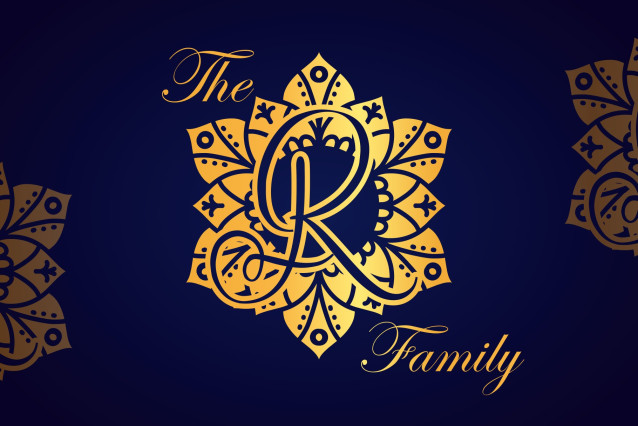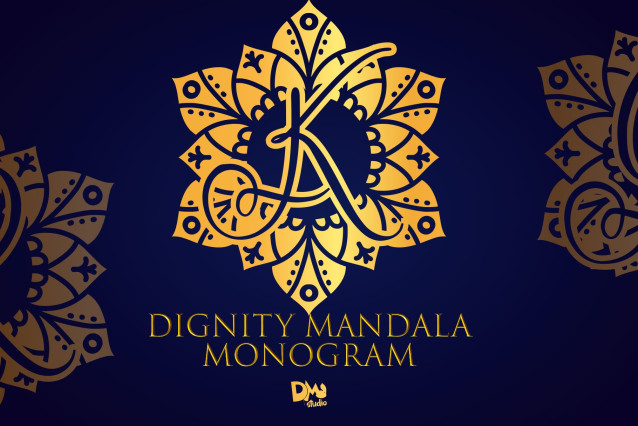
Dignity Mandala Monogram Font
Dignity Mandala Monogram Font is a graceful and intricate monogram font that merges the timeless beauty of mandala artistry with a sense of nobility and refinement. Designed to add prestige and sophistication to your creative projects, this font is perfect for luxury branding, upscale invitations, fine stationery, wedding designs, and spiritual wellness themes. Its detailed yet balanced design evokes both beauty and strength.